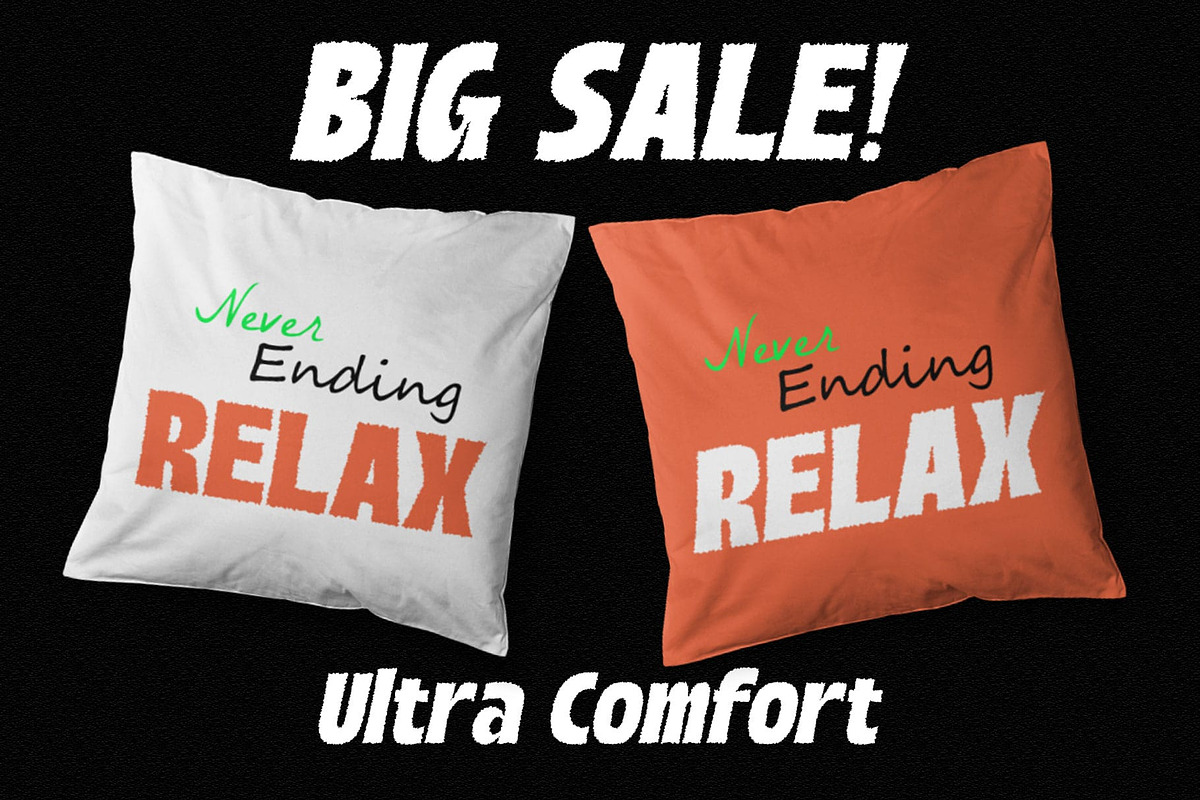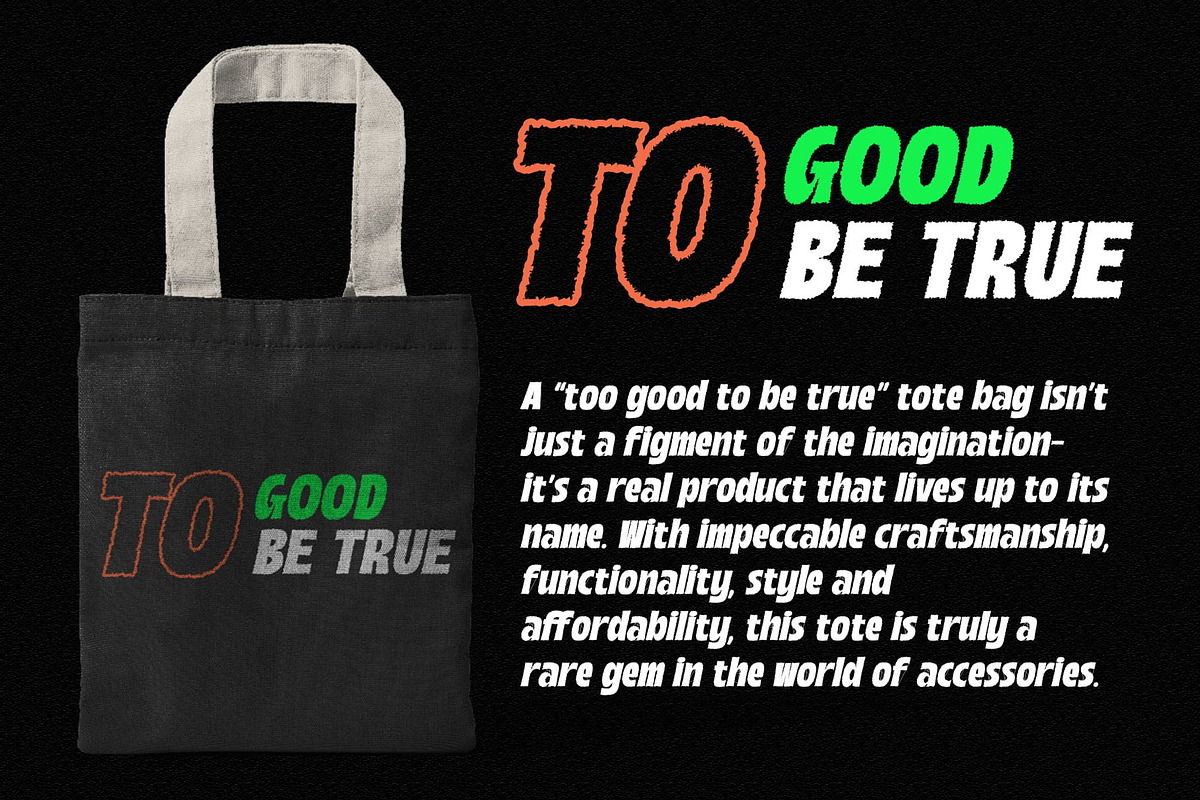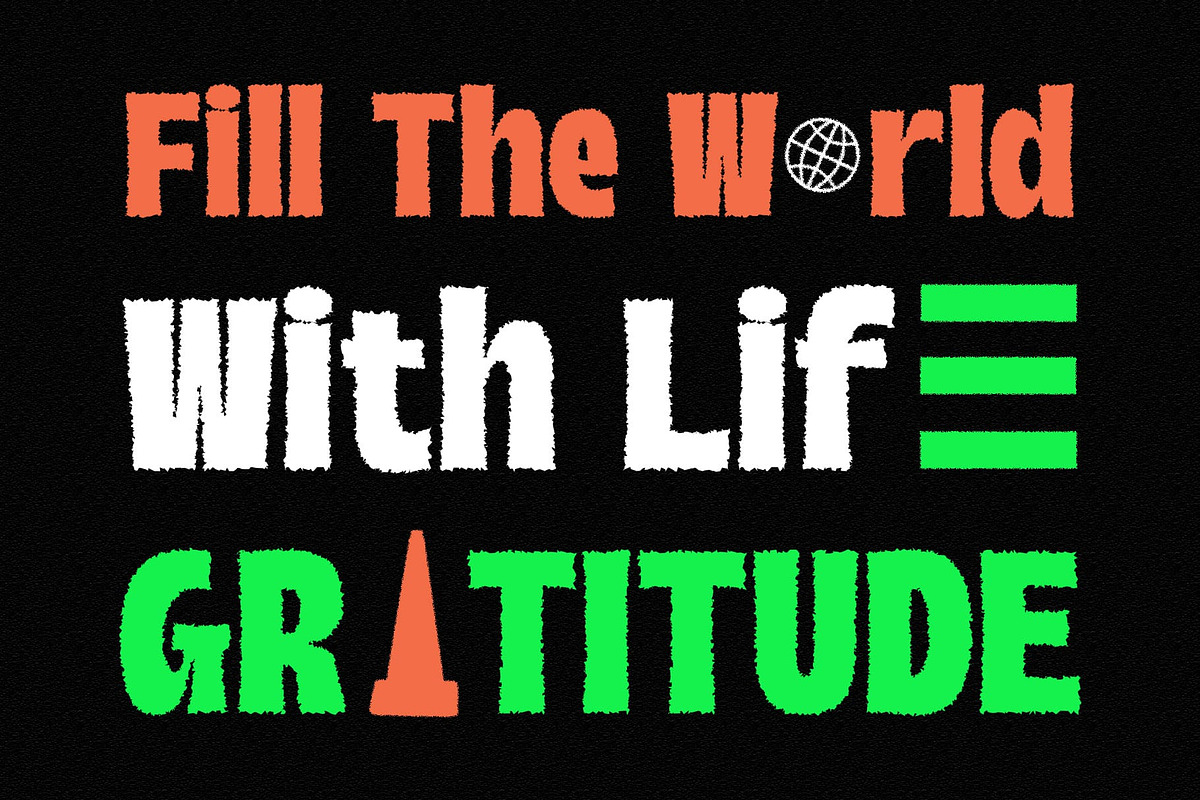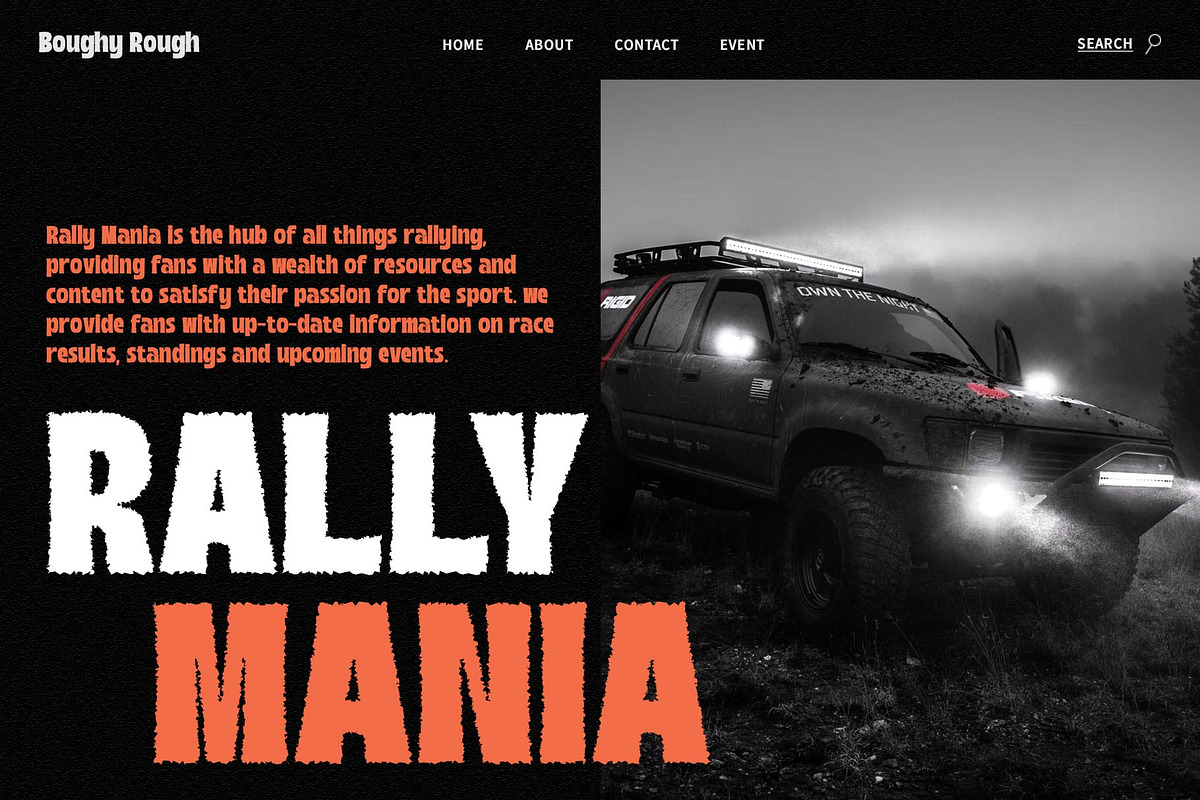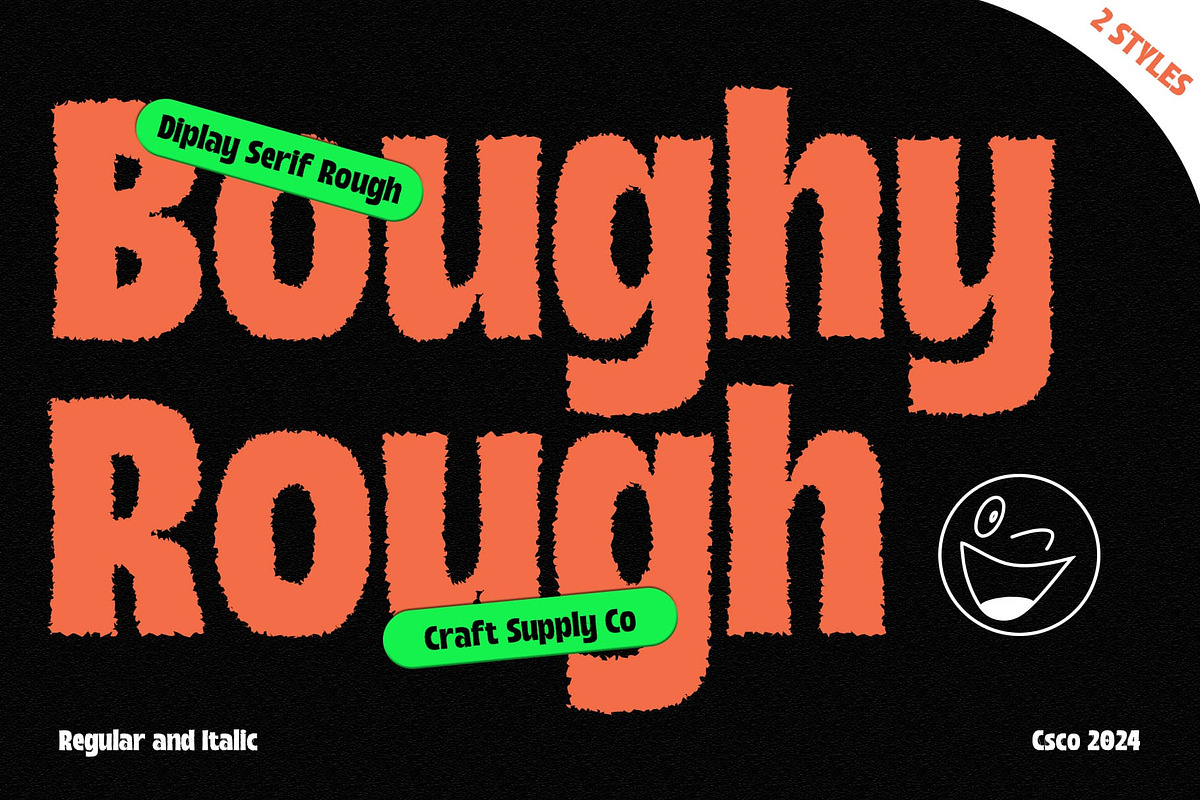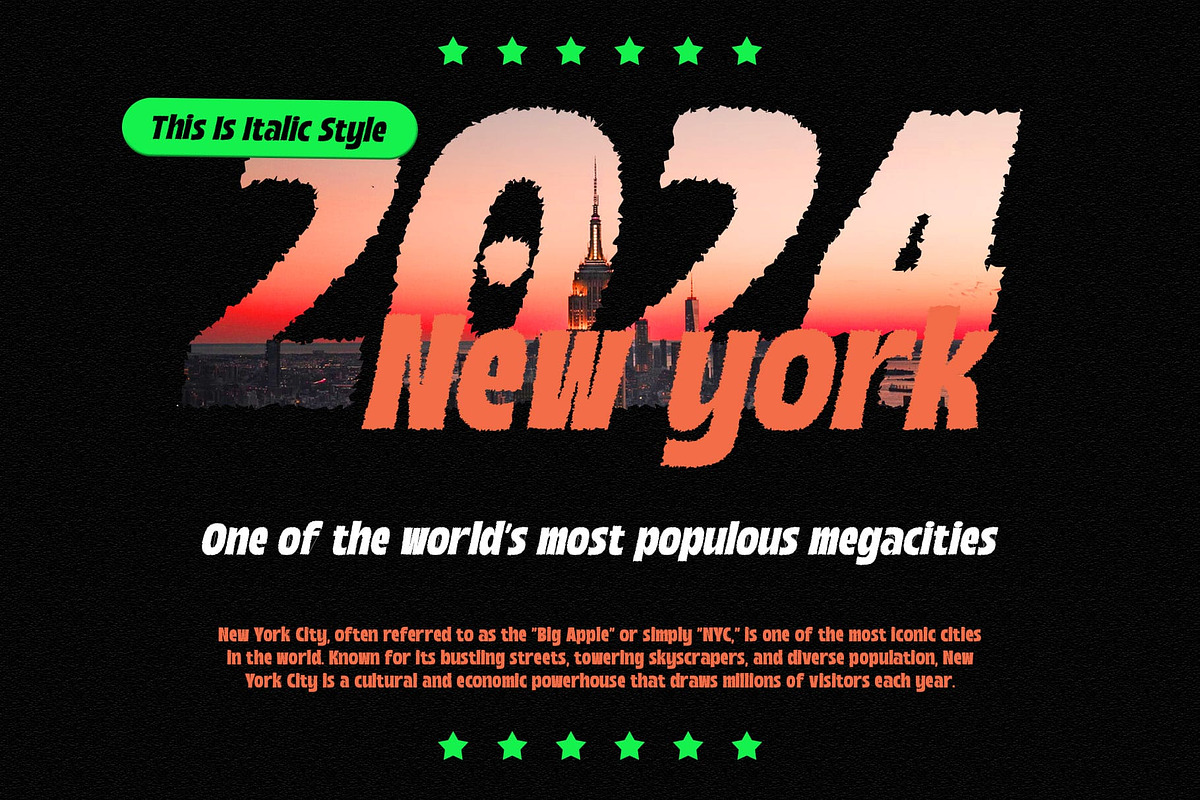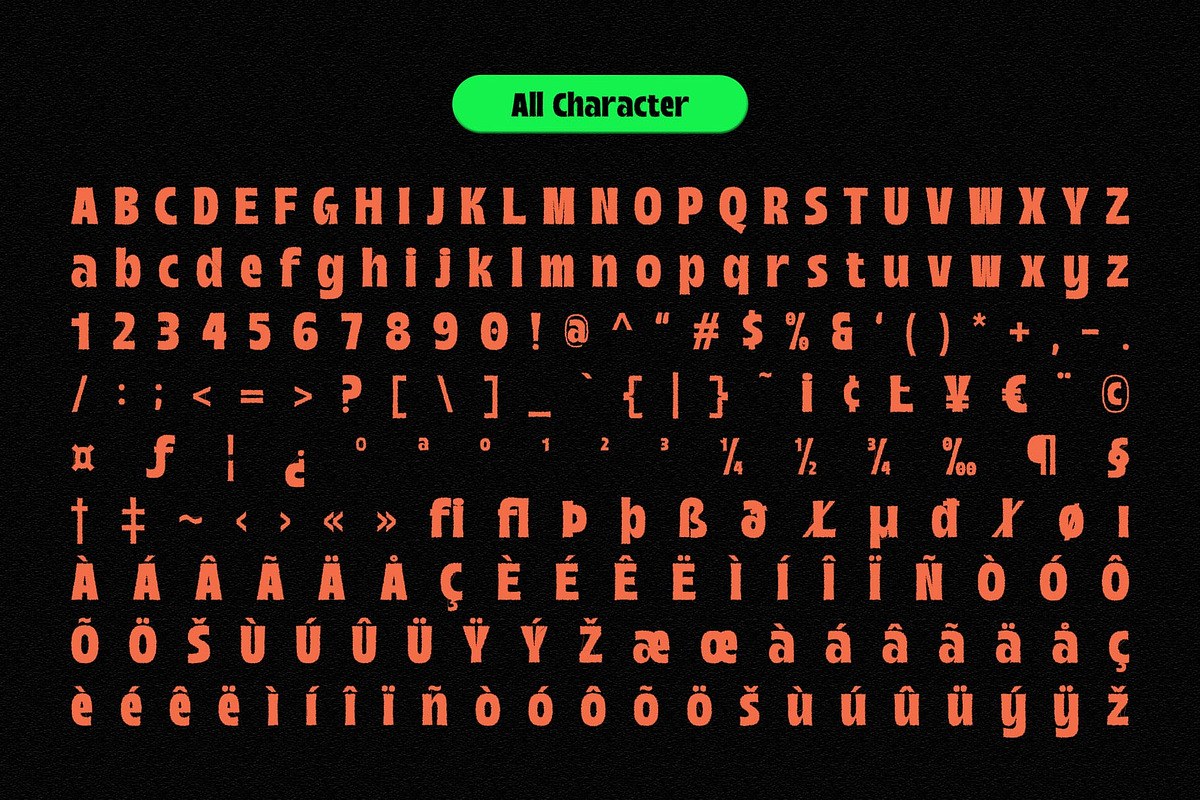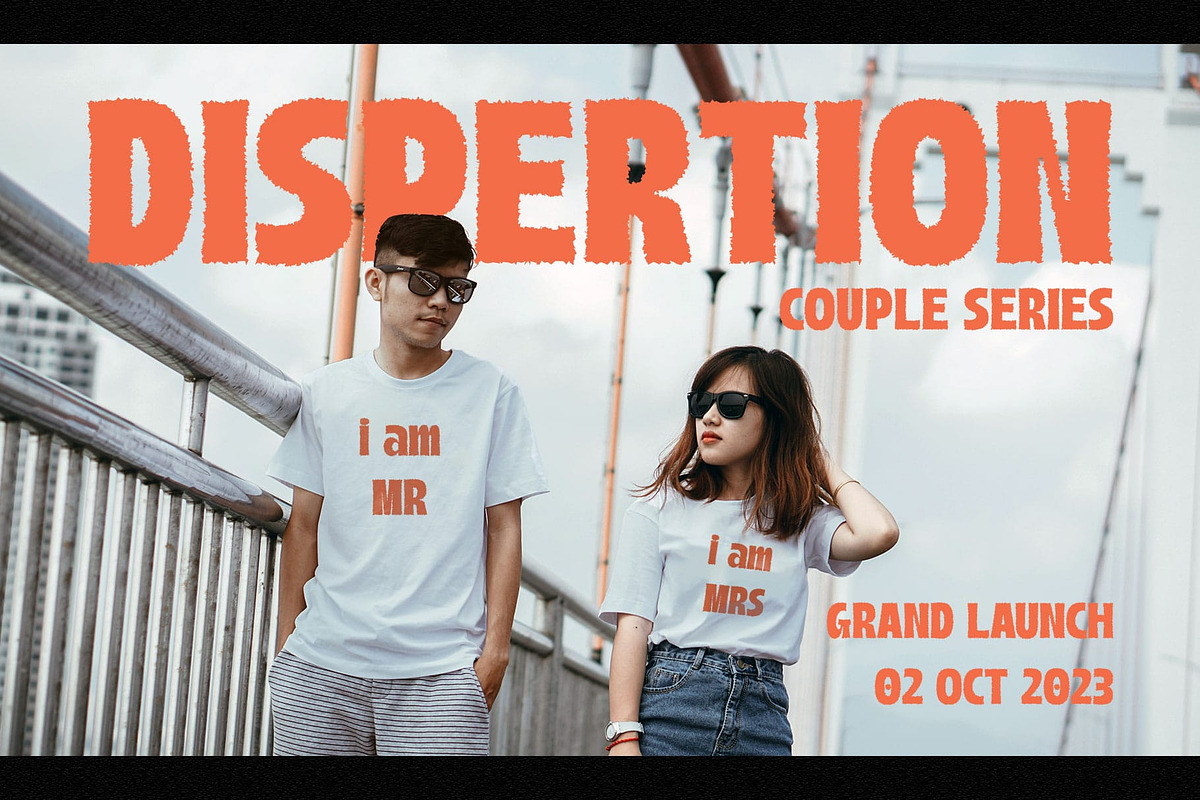
Boughy Rough
Bold and Vintage: Introducing Boughy Rough
Dynamic Sans Serif Design Boughy Rough features a striking sans serif bold design that commands attention. Its bold strokes and clean lines make it perfect for impactful display use.
Vintage Appeal with Rough Texture Infused with a rough texture effect, This font exudes a vintage charm that adds character to any design. The rough finish gives it a weathered look, reminiscent of classic typography.
Ideal for Attention-Grabbing Displays Tailored for attention-grabbing displays, This font excels in various applications, from posters to product packaging. Its bold sans serif style ensures your message gets noticed.
Versatile and Timeless Despite its vintage-inspired rough texture, This font remains versatile and timeless. It adapts seamlessly to both retro-themed projects and contemporary designs, adding a touch of nostalgia to any layout.
Bold, Vintage, and Versatile This font stands out as a bold and versatile display font with a vintage twist. Its sans serif design, coupled with a rough texture effect, offers a unique blend of modernity and nostalgia, making it a standout choice for designers seeking to make a statement.